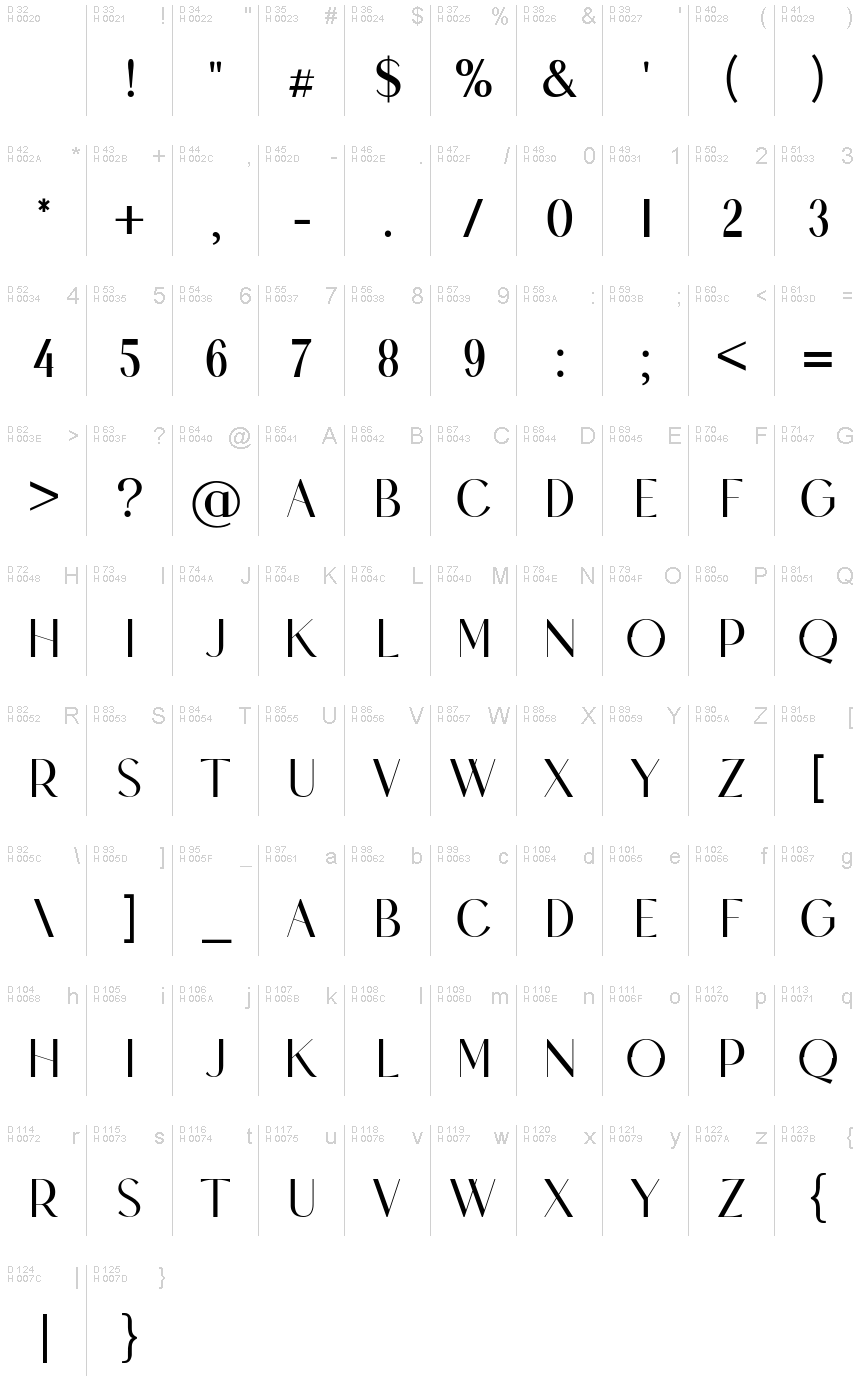
Woodlark
Woodlark, crafted by UI Creative, is a font that exudes sophistication and elegance. Its sleek lines and refined curves create a harmonious balance between classic and contemporary styles. The distinctive features of Woodlark lie in its bold strokes paired with delicate serifs, making each character stand out with grace.
This font's strikingly bold appearance makes it perfect for headlines and titles, capturing attention effortlessly. Simultaneously, its subtle details ensure readability in body text, adding a touch of class to any design project. Woodlark's versatility shines through in branding, editorial layouts, and digital media, offering a timeless aesthetic that adapts seamlessly to various contexts.